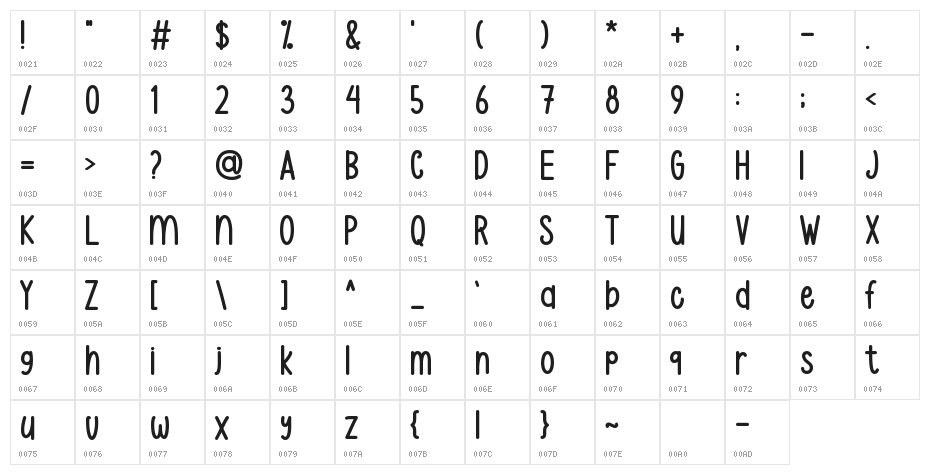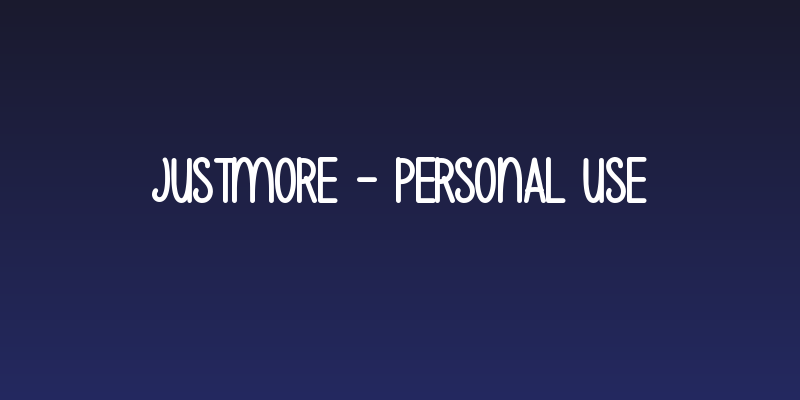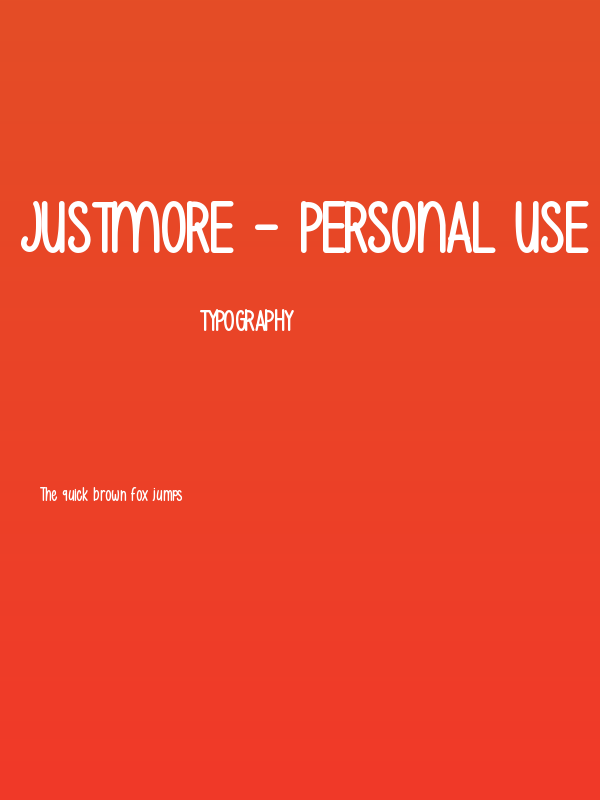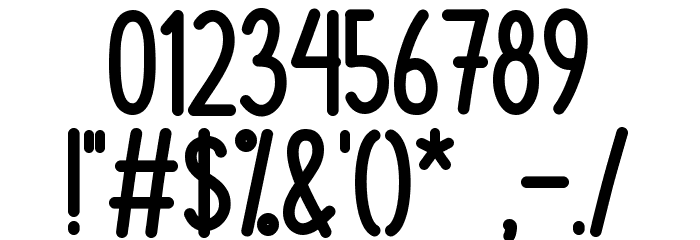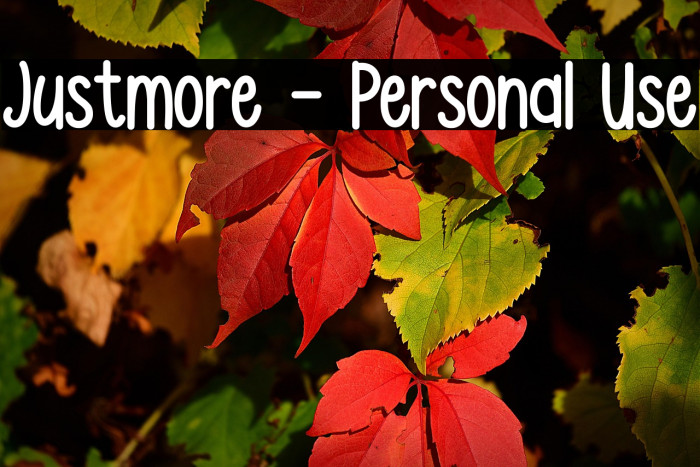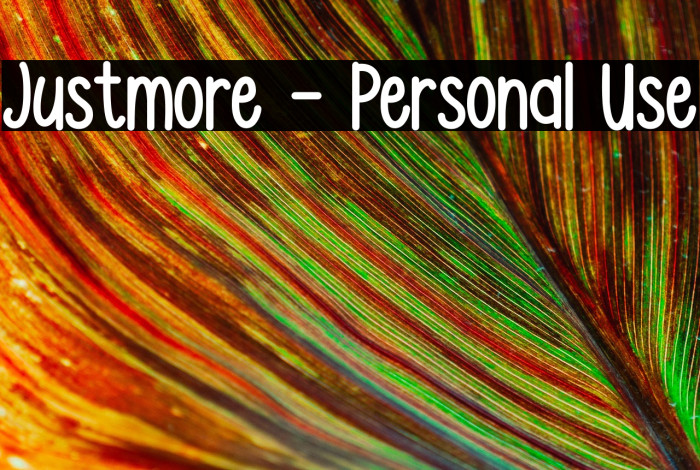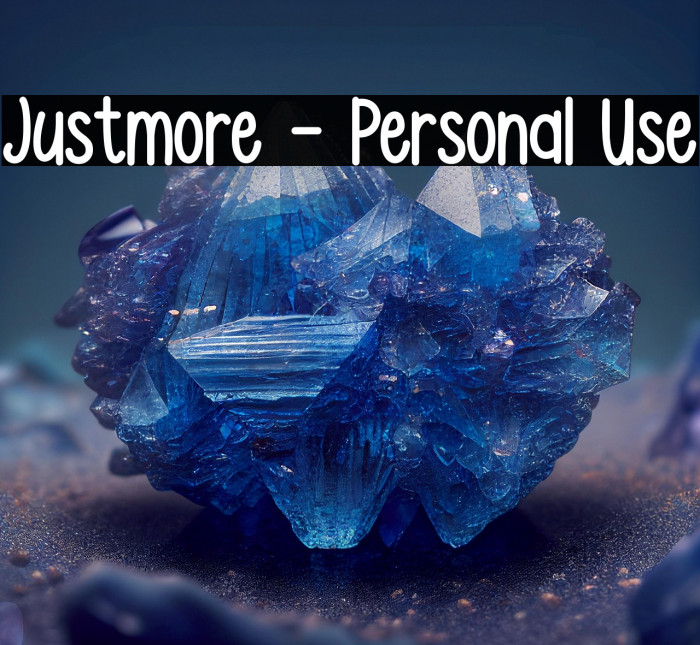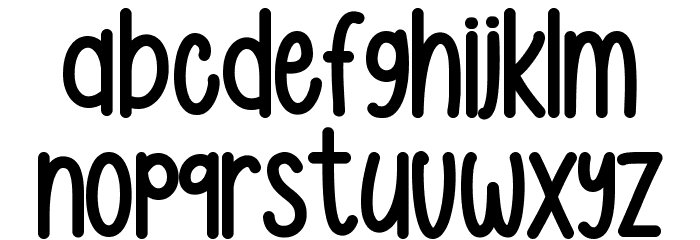
Justmore - Personal Use Font
Justmore - Personal Use Description
This playful and bold font features a handwritten style with rounded edges and a casual, friendly appearance. The letters are thick and uniform, giving it a consistent and cohesive look. The uppercase and lowercase letters maintain a similar width, creating a harmonious balance. The numbers and special characters are designed to match the overall style, ensuring versatility in various applications. Its informal and approachable design makes it ideal for projects that require a touch of personality and warmth.
| Use Case | Logos, Headlines, Informal Invitations |
| Proposed Projects | Ideal for children's books, greeting cards, playful branding, and informal invitations. |